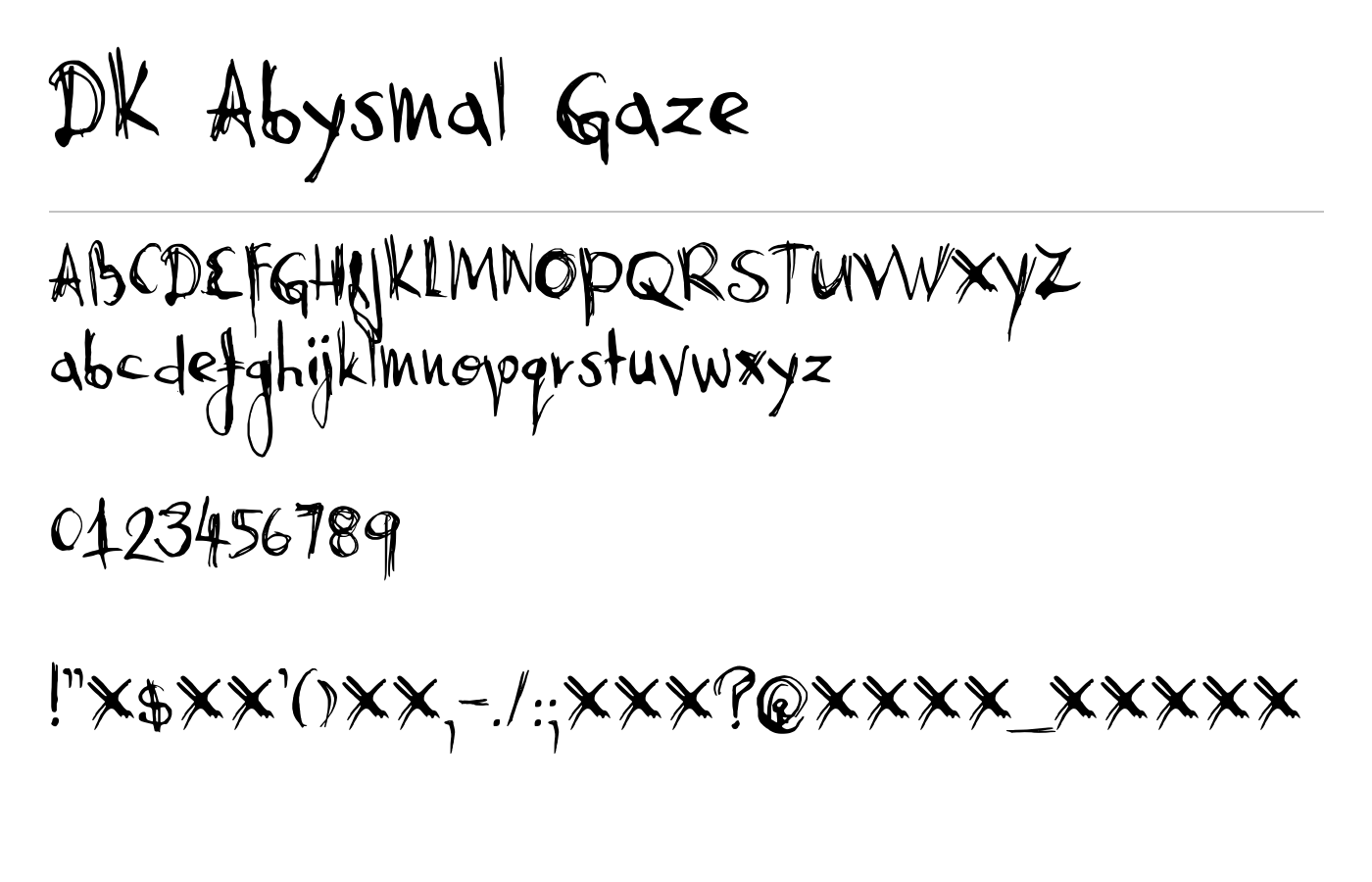
DK Abysmal Gaze is a distinctive handwritten font with a rough, slightly chaotic style that gives it an edgy, eerie character. Its uneven strokes and quirky shapes create a sense of mystery and intensity, making it ideal for horror-themed projects, alternative branding, or creative designs seeking a raw, expressive vibe. This font works best in headlines and display uses where its dramatic appearance can stand out and grab attention.
DK Abysmal Gaze Font
About DK Abysmal Gaze Font